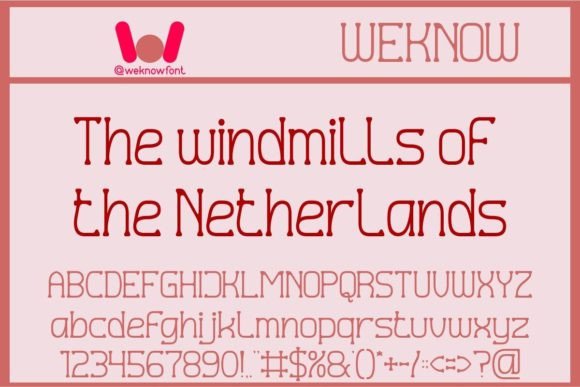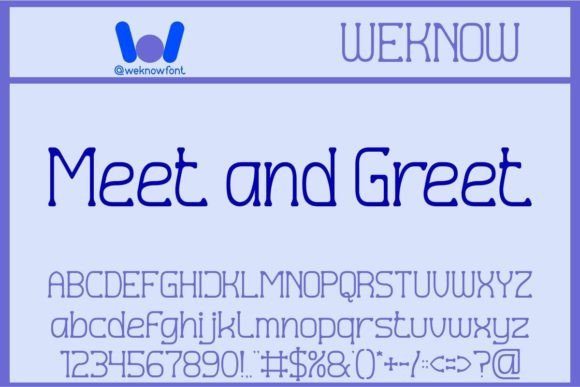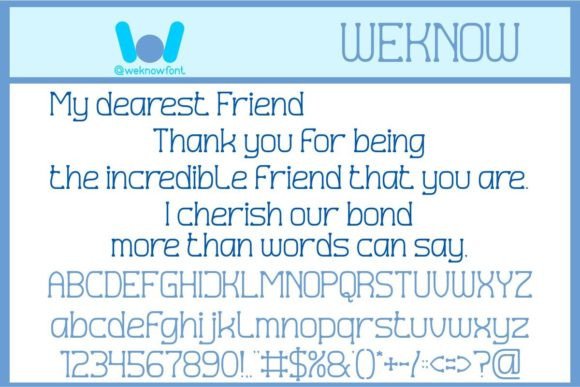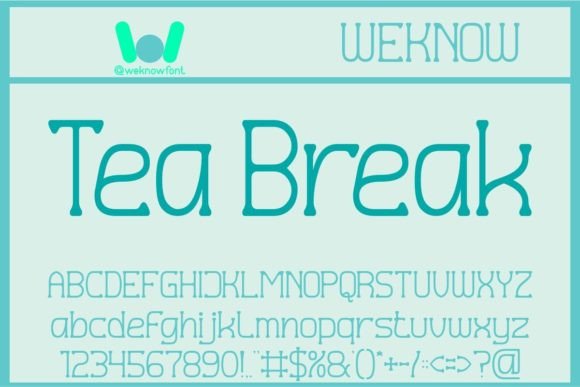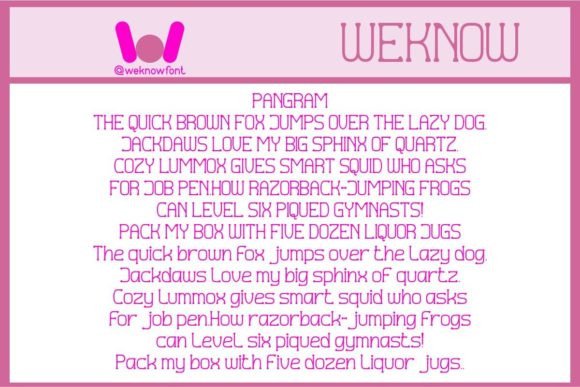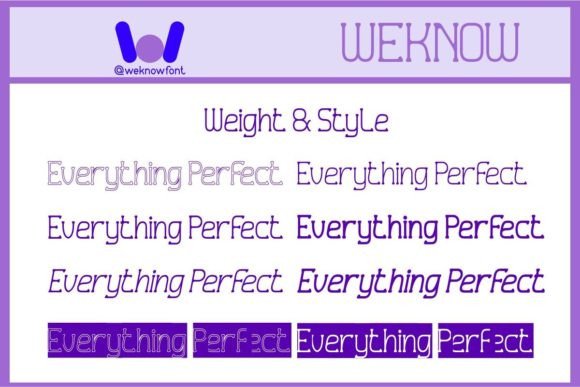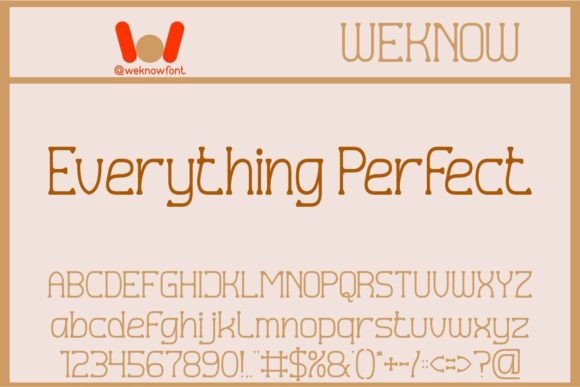
Introducing Everything Perfect Font: Elevate Your Designs with Simplicity and Elegance
In the world of typography, finding the perfect font that embodies both simplicity and elegance can be a daunting task. However, look no further than the Everything Perfect font, a serif typeface that is redefining the way designers approach their creative projects. With its unique blend of warmth, elegance, and friendliness, this font is poised to become a staple in the design community.
The Beauty of Simplicity
Everything Perfect is more than just a font; it’s a design statement. Its simplistic beauty is not just visually appealing but also incredibly versatile. Whether you’re crafting striking headlines, establishing a corporate or brand identity, or simply looking to add a touch of sophistication to your designs, this font is the perfect choice. The elegance of Everything Perfect lies in its ability to convey a sense of warmth and approachability, making it an ideal fit for a wide range of design applications.
One of the standout features of the Everything Perfect font is its incredible versatility. While it finds a natural home in the apparel industry, its appeal extends far beyond. Imagine bringing to life breathtaking posters that capture the essence of a moment, captivating music and movie titles that draw viewers in, or engaging games that invite players to explore new worlds. This font is also perfectly suited for high-impact magazines that demand attention, enthralling books that transport readers to new realms, and comics and cartoons that require a unique blend of fun and sophistication.
Beyond Traditional Design: The Digital Frontier
In today’s digital age, design extends far beyond traditional mediums. The Everything Perfect font is also at home in the digital world, excellently complementing popular YouTube channels, Instagram pages, and numerous other creative design projects that demand a modern yet timeless aesthetic. Whether you’re a digital content creator looking to elevate your brand or a designer seeking to make a statement, this font offers the perfect blend of contemporary flair and classic elegance.
Why Choose Everything Perfect?
So, what sets Everything Perfect apart from other fonts on the market? Here are just a few reasons why designers and crafters are falling in love with this typeface:
- Elegant and Friendly Nature: The font’s unique blend of elegance and friendliness makes it stand out in any design.
- Versatility: From apparel to digital content, and from posters to books, Everything Perfect adapts seamlessly to any medium.
- Simplicity and Beauty: Its simplistic design does not compromise on beauty, offering a clean yet visually appealing aesthetic.
- Wide Range of Applications: Whether you’re working on a corporate project, a creative design venture, or digital content, this font is incredibly versatile.
Adding Perfection to Your Designs
Incorporating the Everything Perfect font into your designs is a straightforward process that can elevate your work from ordinary to extraordinary. Here are some tips for making the most of this exceptional typeface:
- Experiment with Sizes: Everything Perfect looks stunning in both large and small sizes, making it perfect for headlines and body text.
- Play with Colors: While the font’s elegance shines in black and white, don’t be afraid to experiment with colors that complement your design.
- Mix and Match: Combine Everything Perfect with other fonts to create a unique and compelling visual hierarchy.
The Everything Perfect font is more than just a typeface; it’s a design companion that can help you achieve perfection in your creative projects. With its elegant and friendly nature, versatility, and timeless beauty, it’s poised to become an indispensable part of your design toolkit. Whether you’re a seasoned designer or a crafty DIY enthusiast, adding the Everything Perfect font to your collection is a step towards creating designs that are not only visually stunning but also deeply engaging. So why wait? Add a touch of perfection to your designs today with the Everything Perfect font.